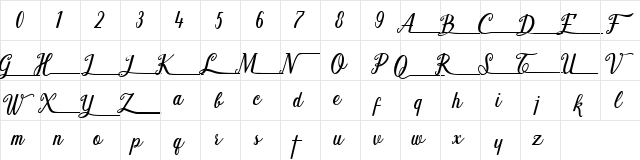
Shark Ready Font Preview
Shark Ready Shark Ready
Shark Ready Font Details
| Foundry | Cundrawan |
| Designer | Cundrawan |
Design Context for Shark Ready Typeface
Shark Ready is a composed and adaptable typeface that performs quietly and consistently across a wide range of design contexts.